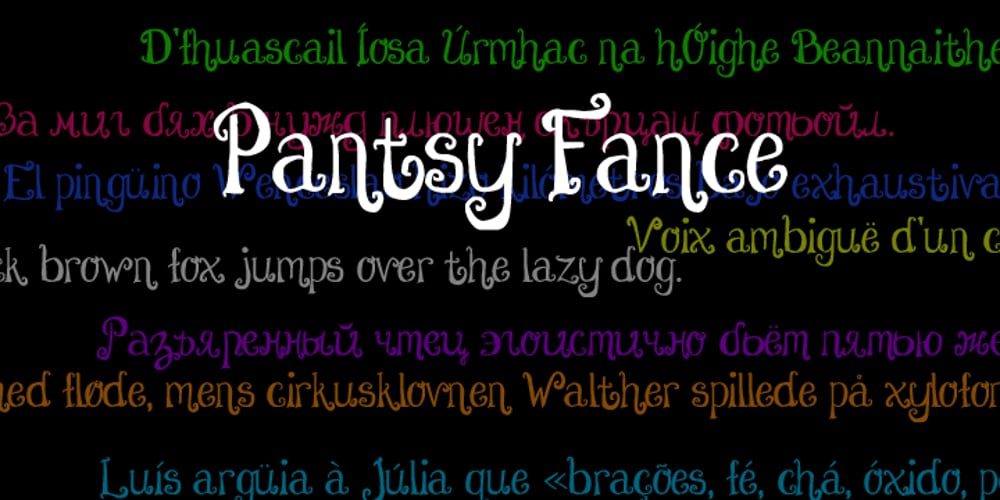
Pantsy Fance
Pantsy Fance font
Pantsy Fance Font Family was designed by Melinda Jeffs and published by melifonts. Pantsy Fance contains 1 styles and family package options. Pantsy Fance is a fun, yet structured typeface. It means business, but doesn’t forget the frills. I use this lettering often on greeting card envelopes and the title section of my class notes. It is great for titling, labels, logos, and signs. This font fully supports the following languages: Bosnian, Bulgarian, Croatian, Czech, Danish, Dutch, English, Estonian, French, German, Hungarian, Italian, Norwegian, Polish, Portuguese, Romanian, Russian, Serbian, Spanish, Swedish, Turkish, Ukrainian. If your language is not listed, or if I’ve missed a character in a language I claim to support, please contact me! I will be happy to add characters as needed, and will consider supporting more languages if there is interest.